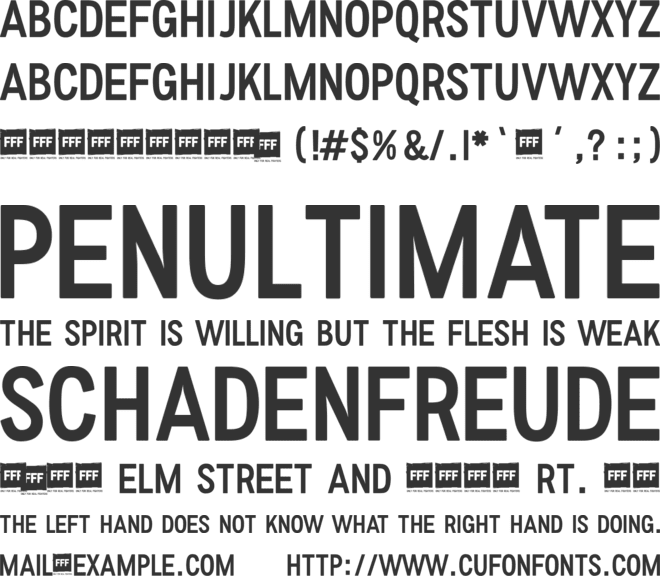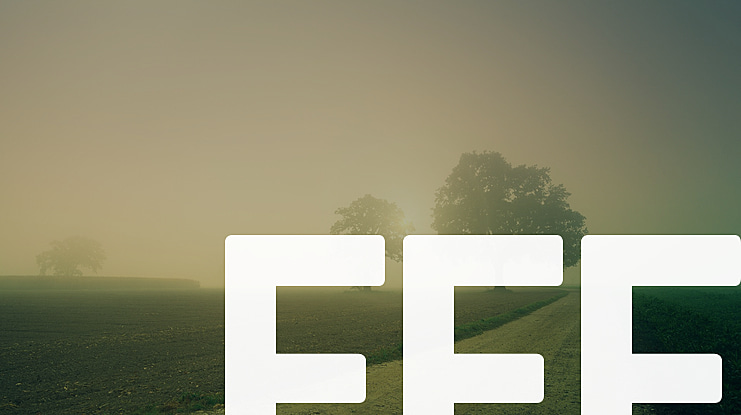
FFF Font Family
Andrea Gaspari
Today. A world premier. A type face created with the sole purpose of helping people to fight. because we all know that a NO written in Comic Sans is like saying that you are lactose intolerant while stuffing a french cheese in your face.
Say NO in a new and different way. Say STOP to the wrong use of fonts. Fight for everything you want with the proper font. Fight for the all the reasons you have, wrong or right.
We are FFF. We are designer. We dont fight, we change.